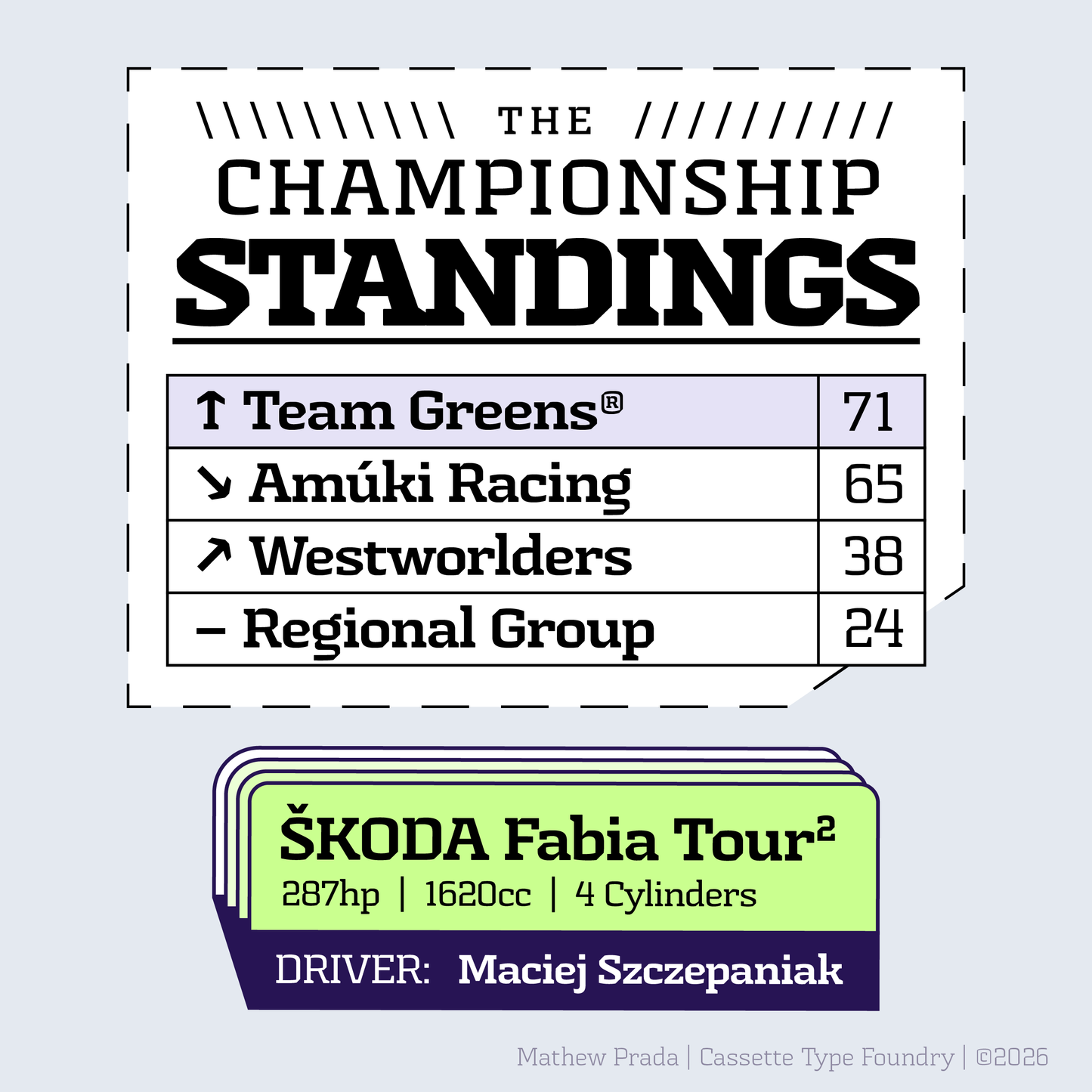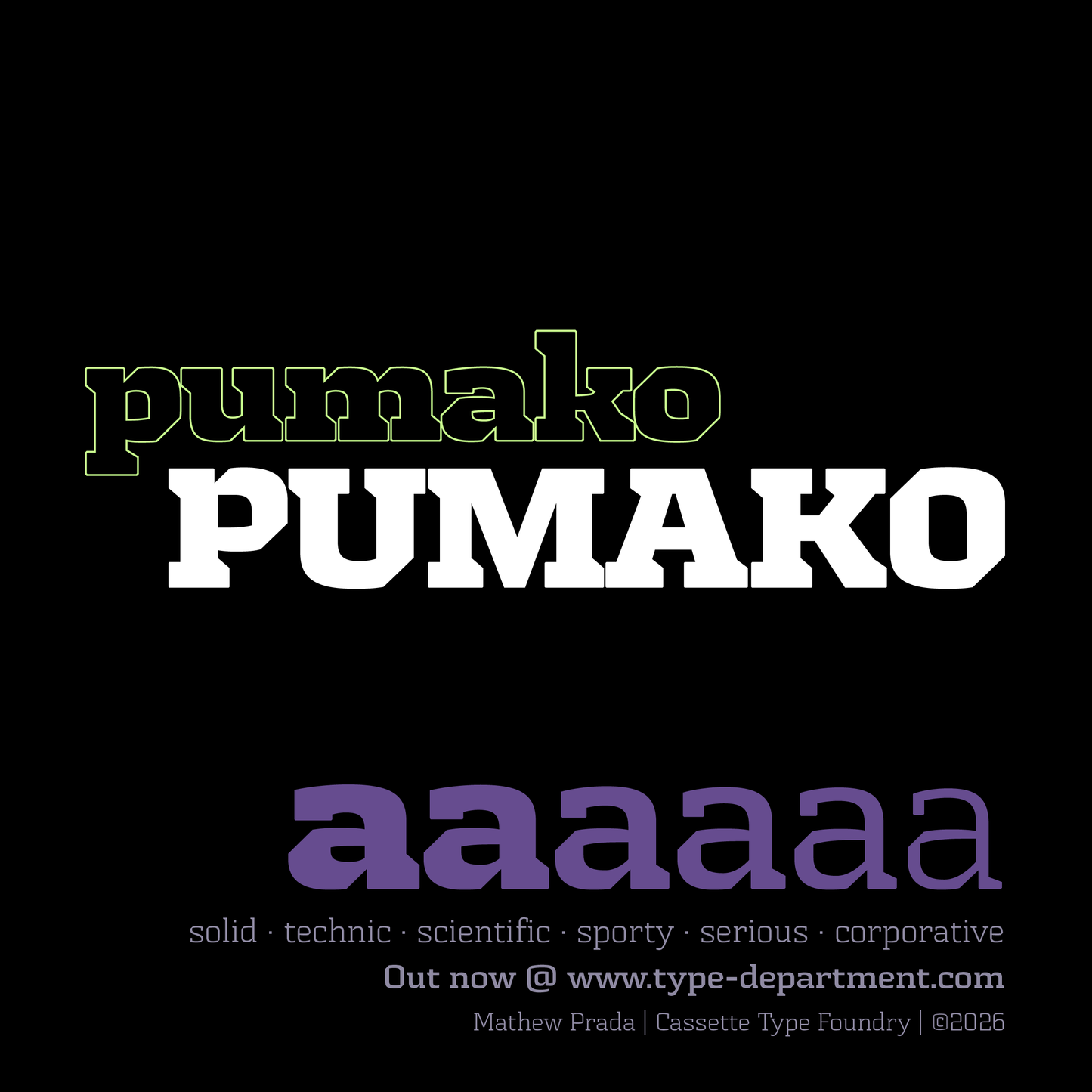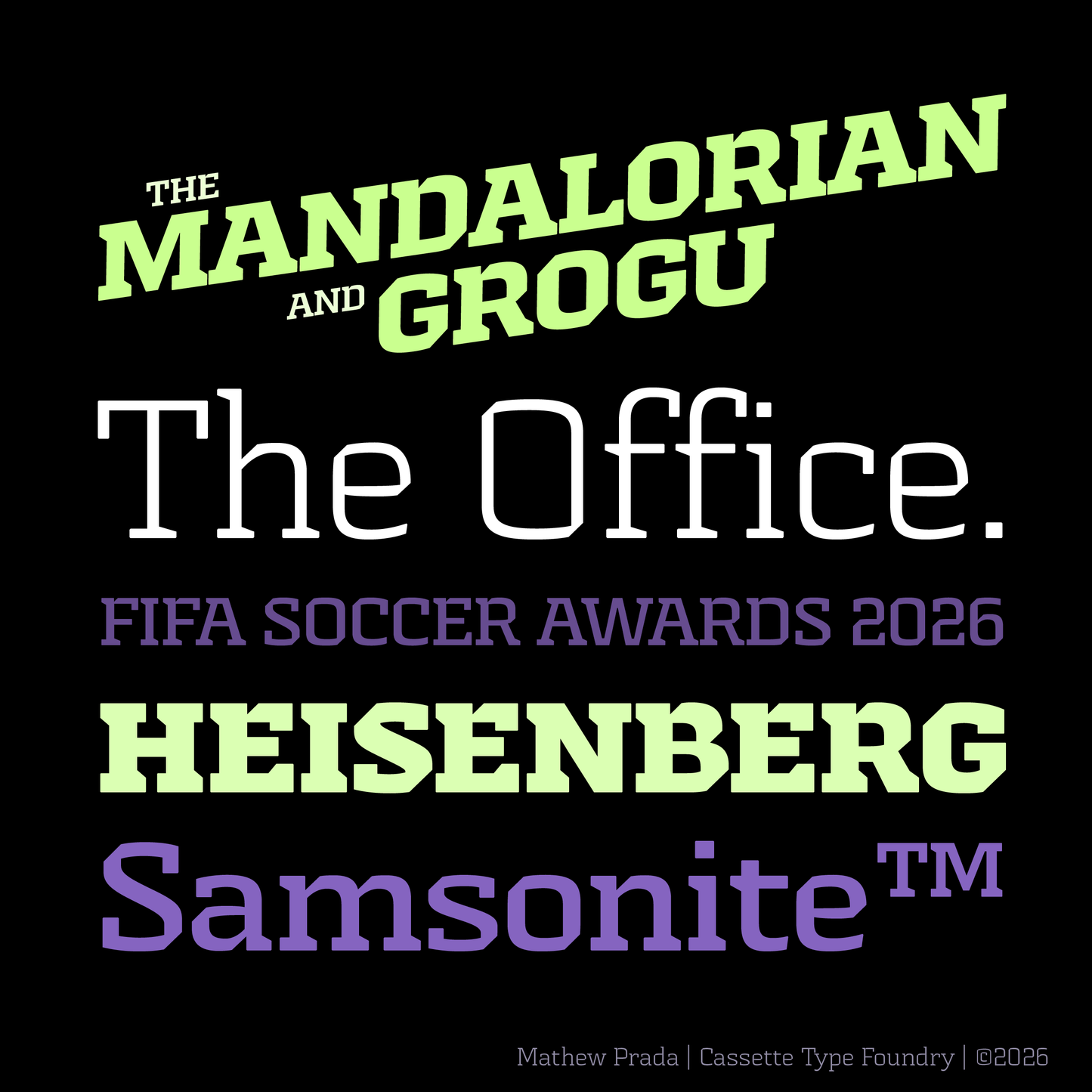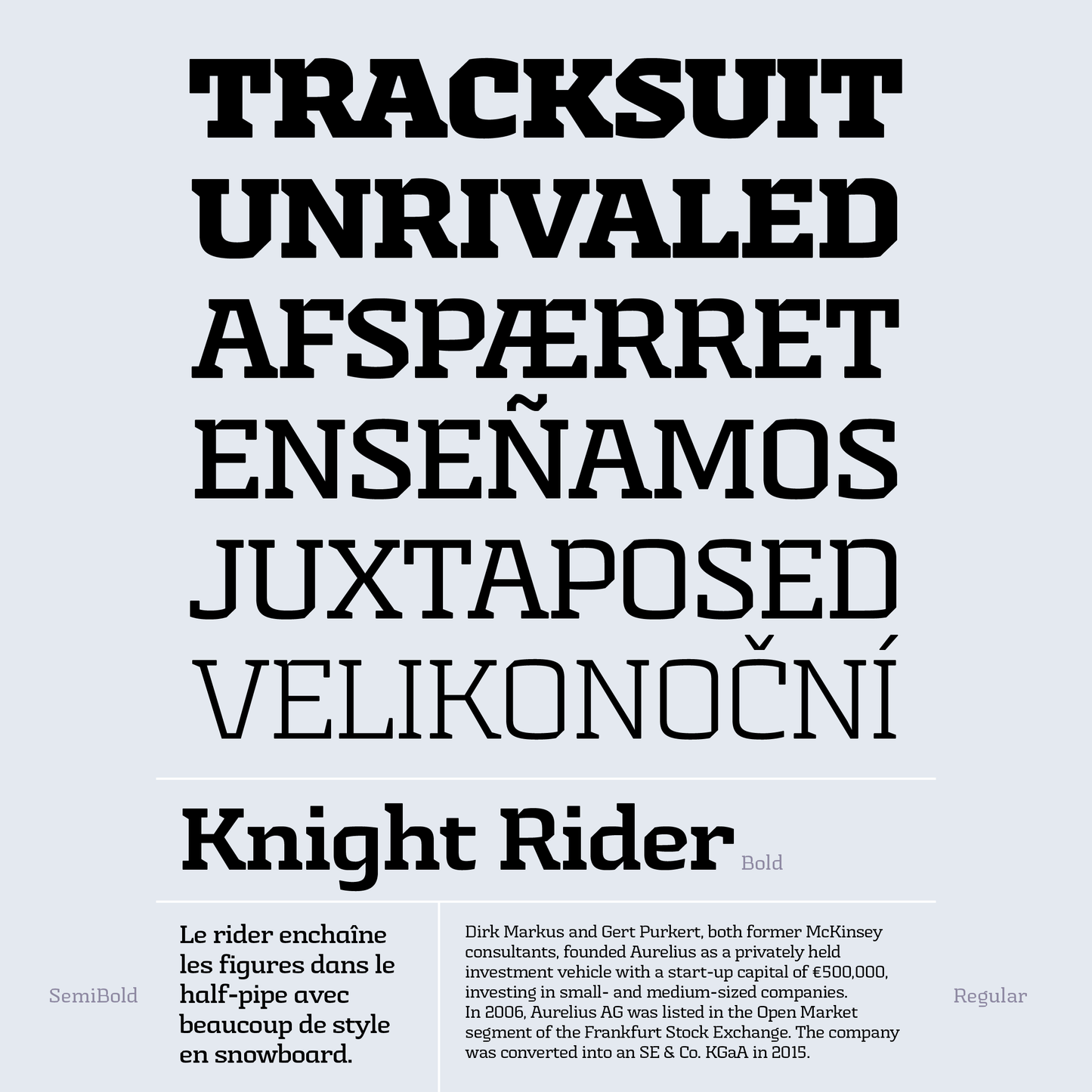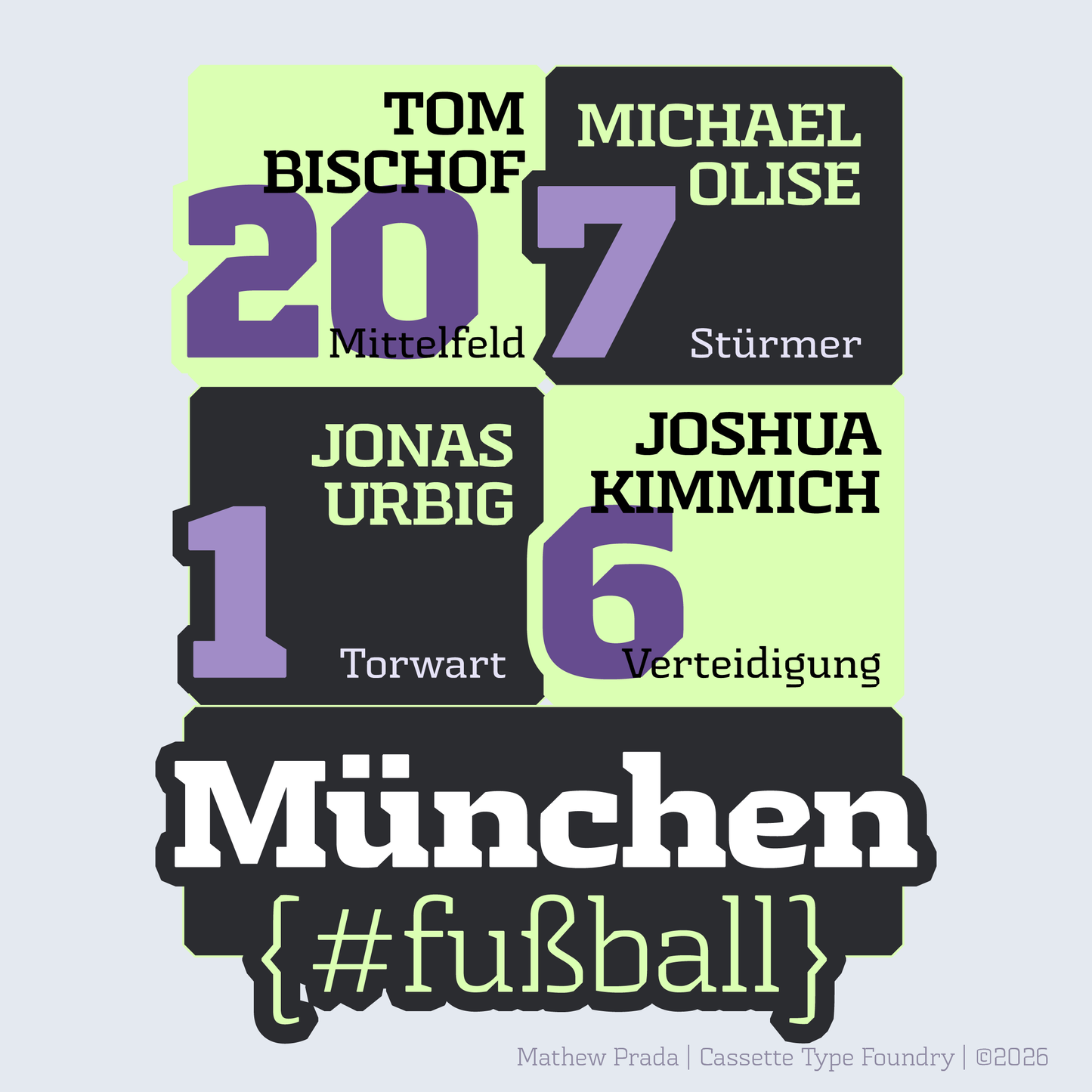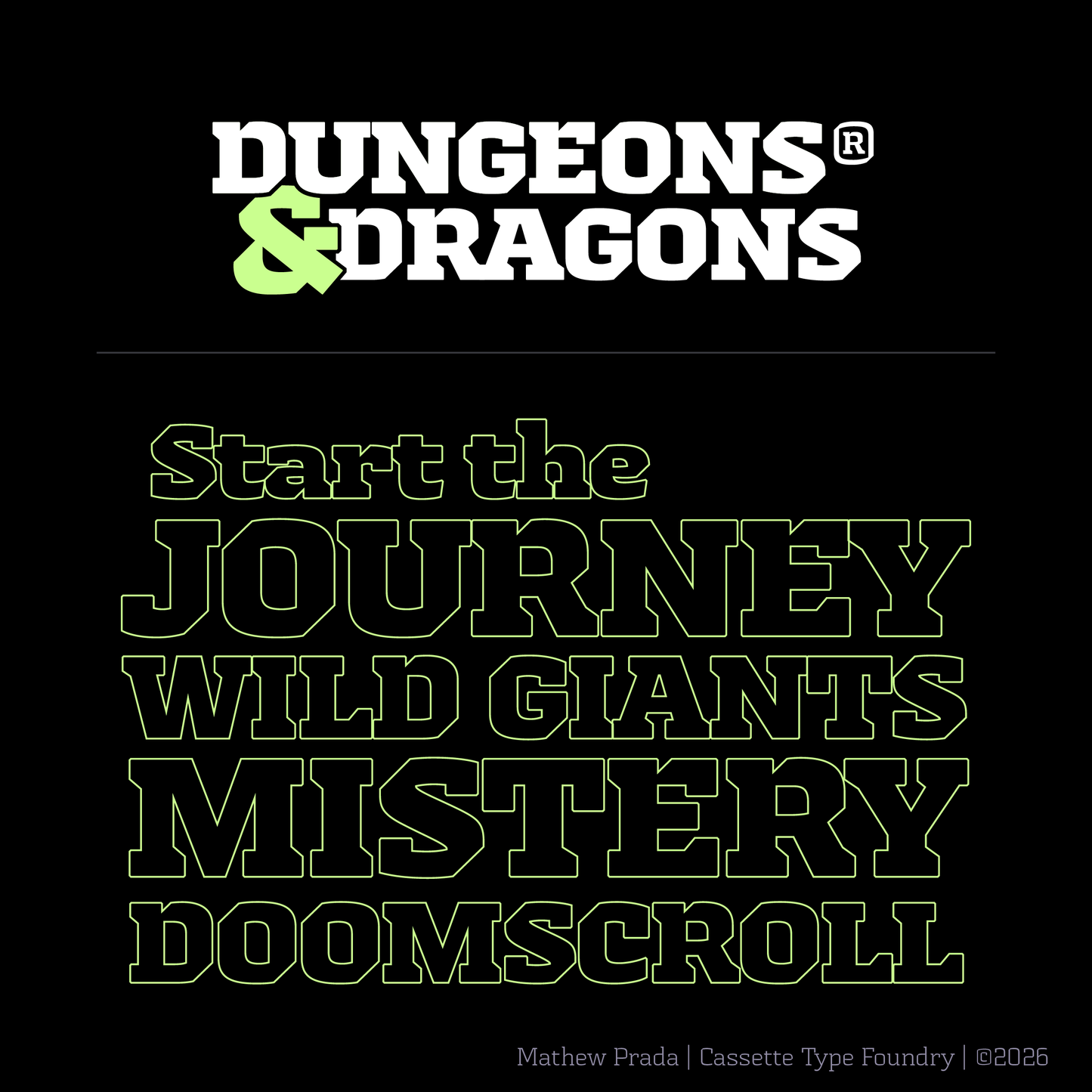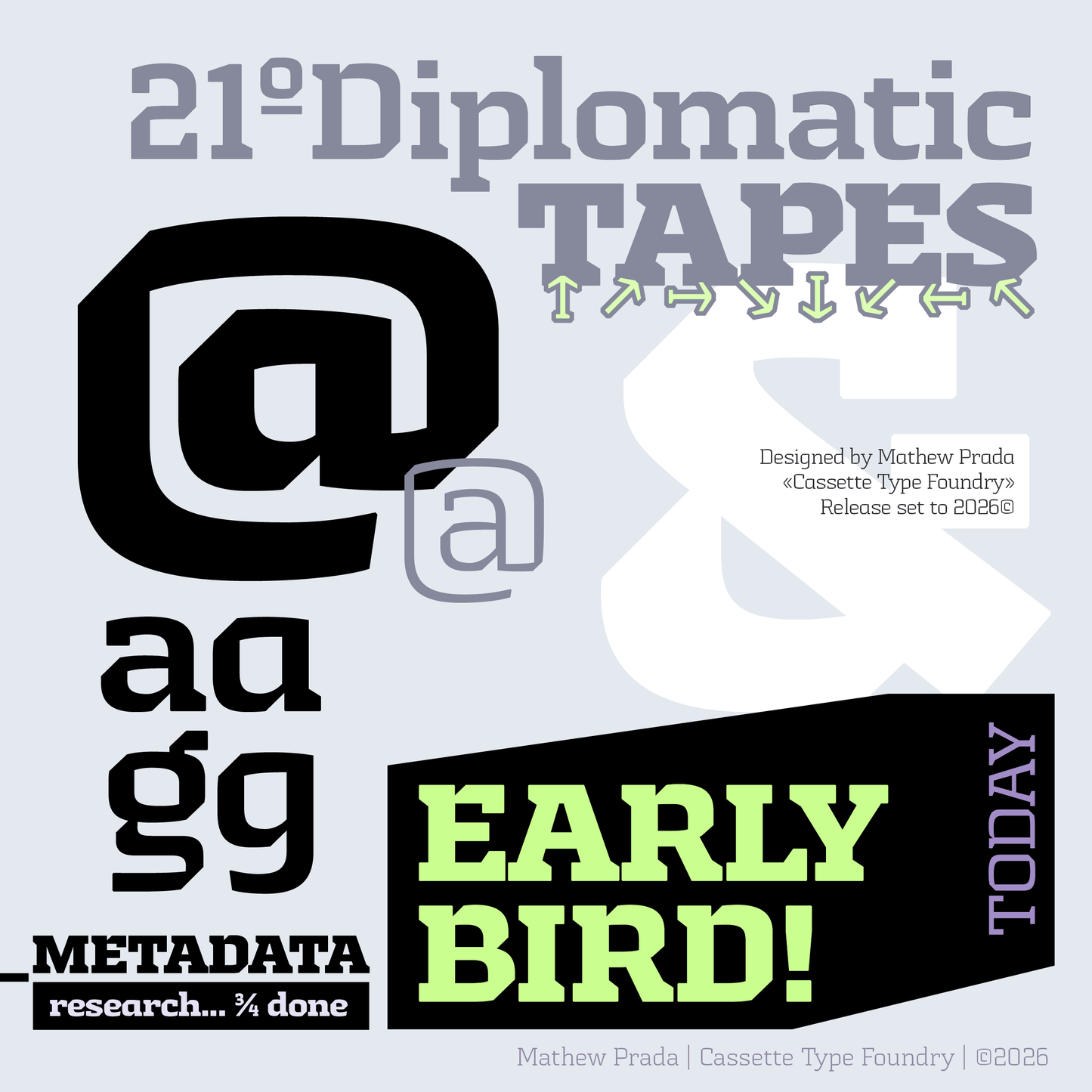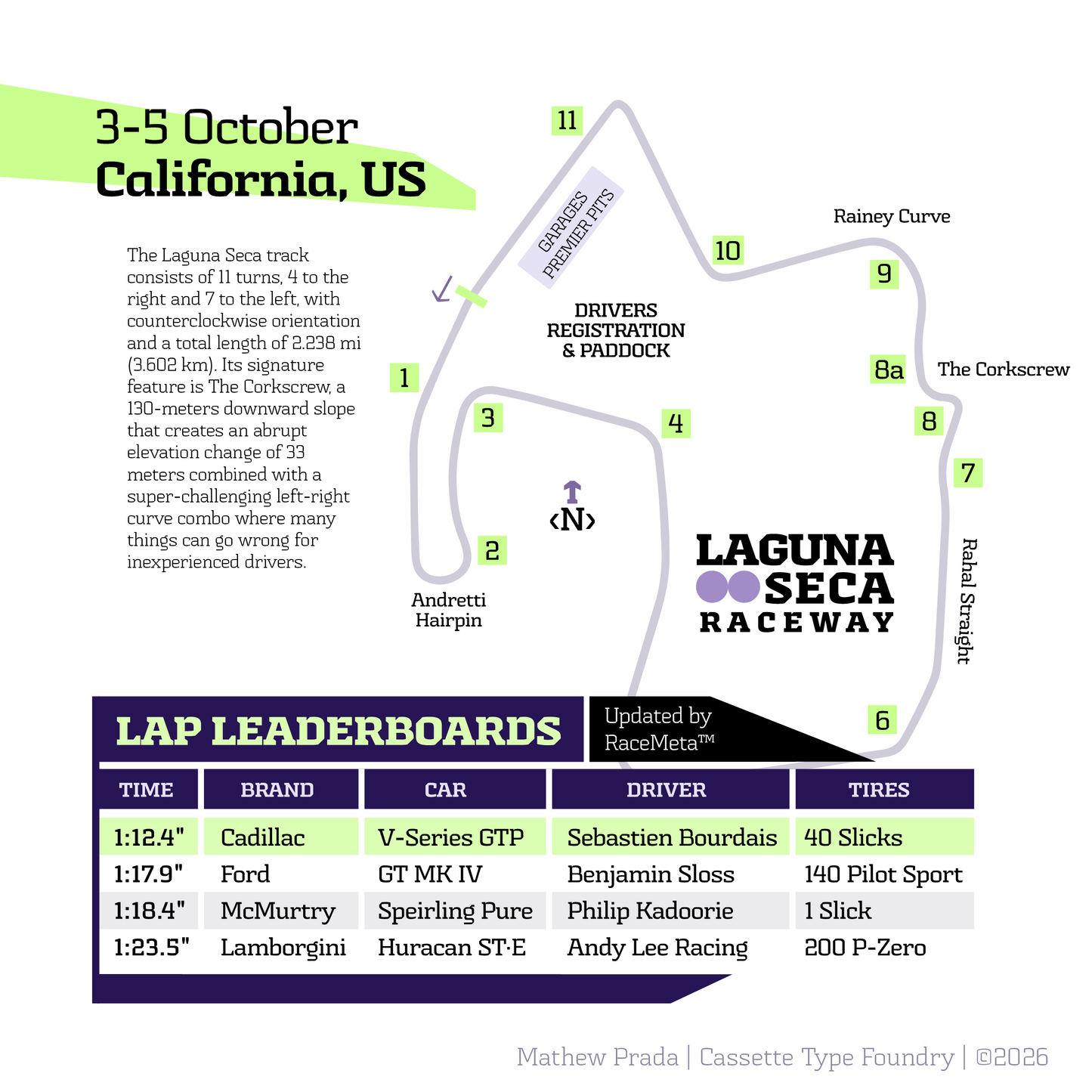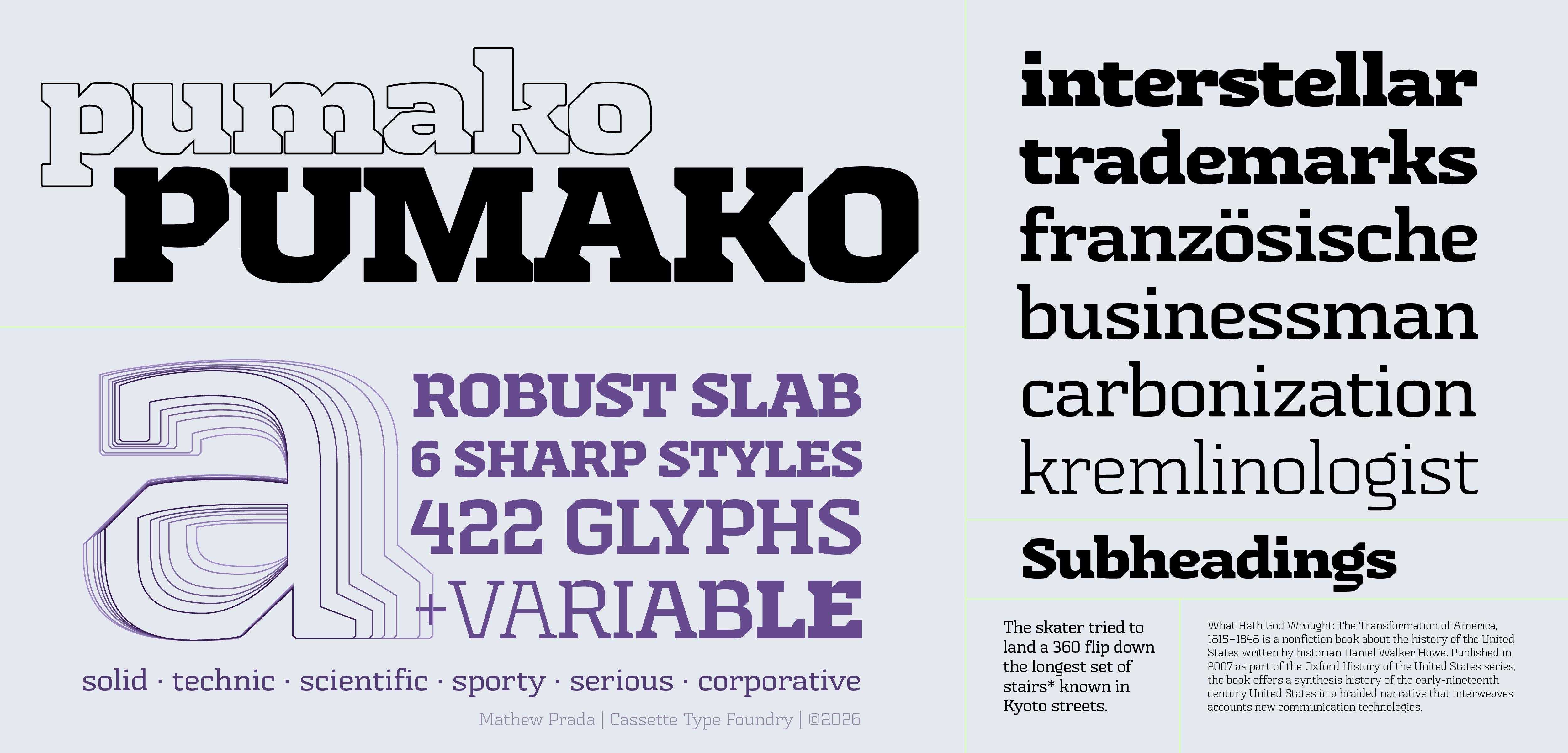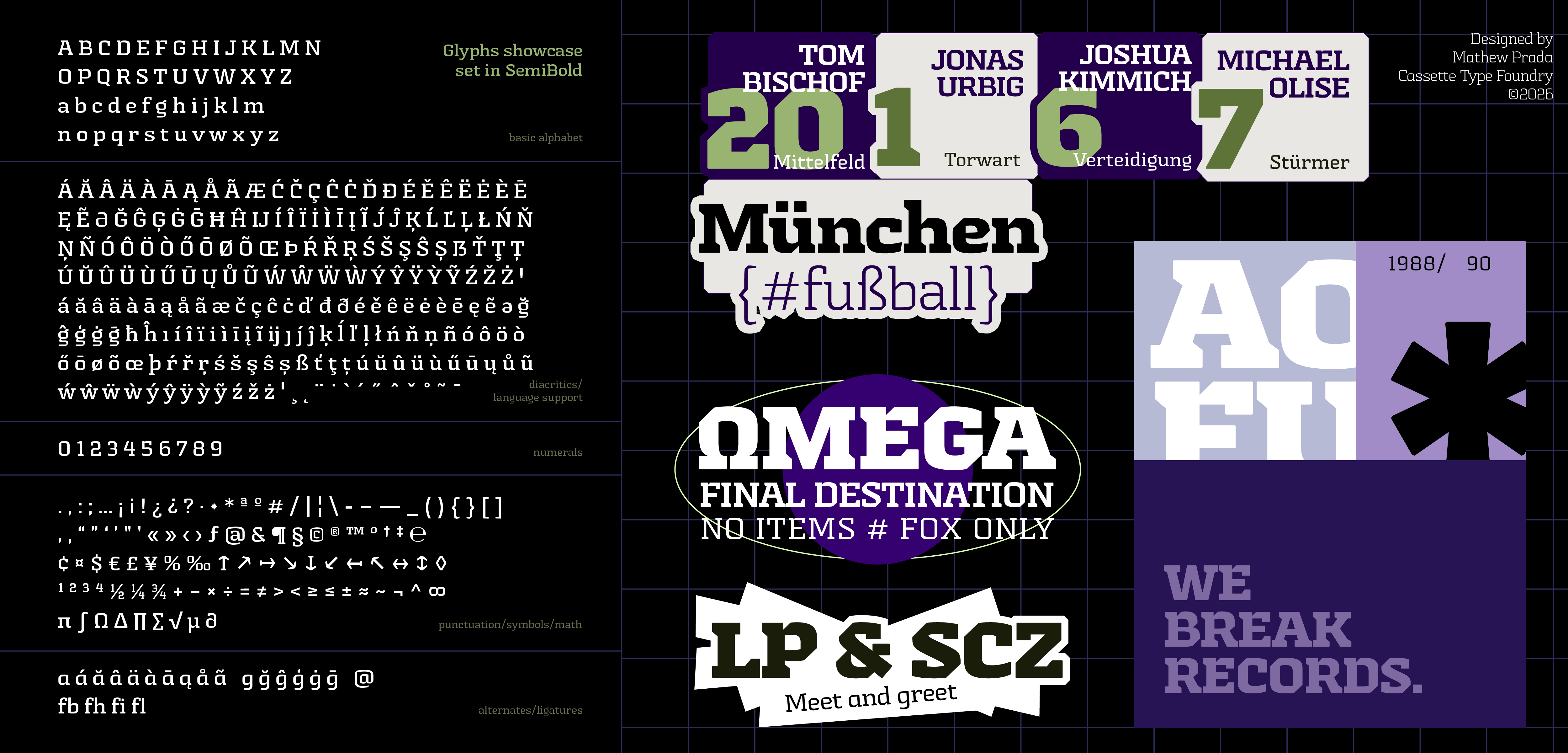
Pumako
Matthew Prada
Pumako is a strong slab serif with a square architecture, merging historic weight with contemporary energy. The family is built for tech, sports, science, research and more.
Suited to everything from branding to editorial design that requires high impact and structural tone.
— SIX WEIGHTS & VARIABLE FONT
— STANDARD LIGATURES
— STYLISTIC ALTERNATES ‘a’ ’g’ ‘@’